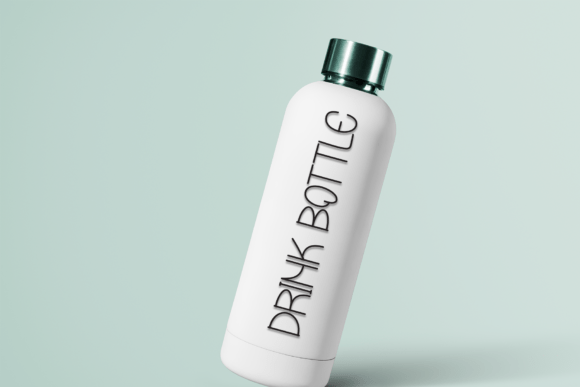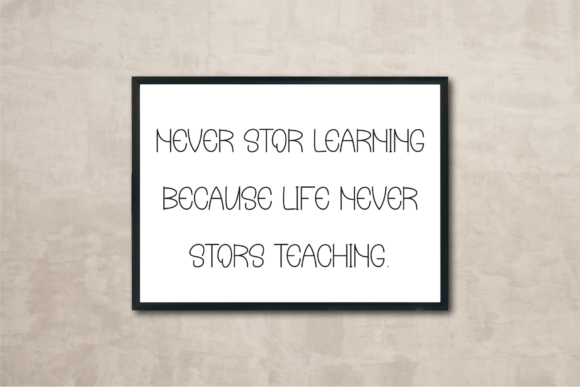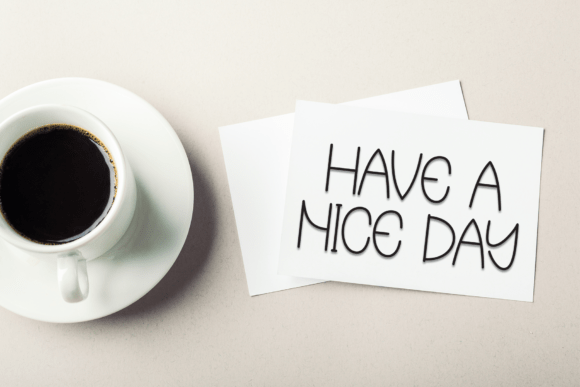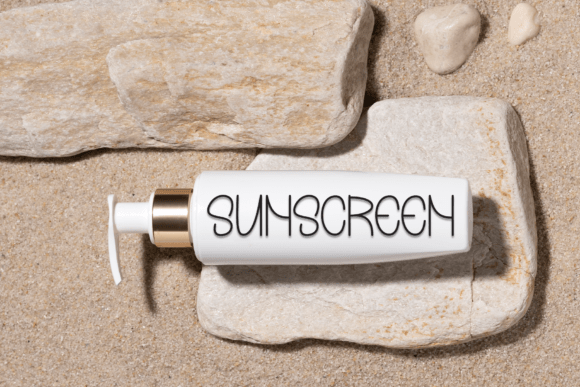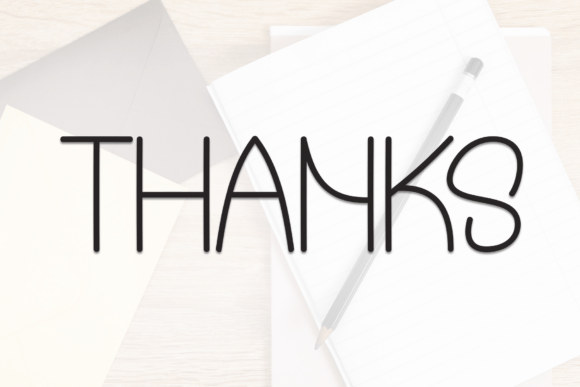
Introduction to Letter Designer Font
Have you ever stared at a blank canvas, trying to come up with the perfect design to capture the essence of your creative project? For designers, this moment of creative blockage can be a daunting experience. But what if you had a secret design resource that could help you break through the barrier and bring your ideas to life?
Enter the Letter Designer Font, a clean and quirky display typeface that’s designed to help you infuse your work with personality without sacrificing readability. This modern creative display font is perfect for designers who want to add a touch of originality to their projects, whether it’s a branding campaign, a social media graphic, or an editorial layout.
With its handcrafted appearance and minimalistic charm, the Letter Designer Font is a valuable addition to any designer’s toolkit, offering complete access to every glyph and swash – and it’s PUA encoded for your convenience, making it easy to use and customize.
Key Features of Letter Designer Font
- High-quality, vector-based design resource ideal for creative projects requiring precise typography.
- Comprehensive font package featuring a wide range of letters, making it an excellent choice for designers seeking a reliable, all-encompassing solution.
- Resolution-independent, ensuring crisp and clear typography at any size, from small text to large-scale applications.
- Designed with versatility in mind, the Letter Designer Font is suitable for a variety of design applications, including print, digital, and web-based projects.
- Perfect for graphic designers, digital artists, and anyone looking for a high-quality, free font to enhance their creative projects.
Honest Review: Letter Designer Font
I recently stumbled upon the Letter Designer Font, and I must say it’s a great addition to any designer’s toolkit. This font is perfect for creative projects where you need a clean and modern aesthetic. With a transparent background, it’s easy to customize and integrate into your design.
- ✨ Clean and modern aesthetic
- ✨ Transparent background for easy customization
- ✨ High quality letterforms
- ⚠️ Limited character set (may not be suitable for lengthy texts)
- ⚠️ Not ideal for use in print materials with complex layouts
Overall, I’m quite impressed with the Letter Designer Font. It’s a versatile and high-quality design resource that’s perfect for digital projects. While it has some limitations, it’s still a great choice for designers who need a modern and clean font.
Letter Designer Font is a versatile font that can be used in a variety of creative projects, including:
– Business cards
– Brochures
– Posters
– Digital invitations
To get the most out of Letter Designer Font, try the following tips:
– Experiment with different font sizes and styles to create a unique look.
– Use a transparent background to create a modern and sleek design.
Q: Is the Letter Designer Font a high-quality design resource?
Yes, the Letter Designer Font is a high-quality design resource, carefully crafted to meet the needs of creative professionals. With its unique blend of style and functionality, it’s an excellent choice for a wide range of design projects, from branding and marketing materials to digital products and publications.